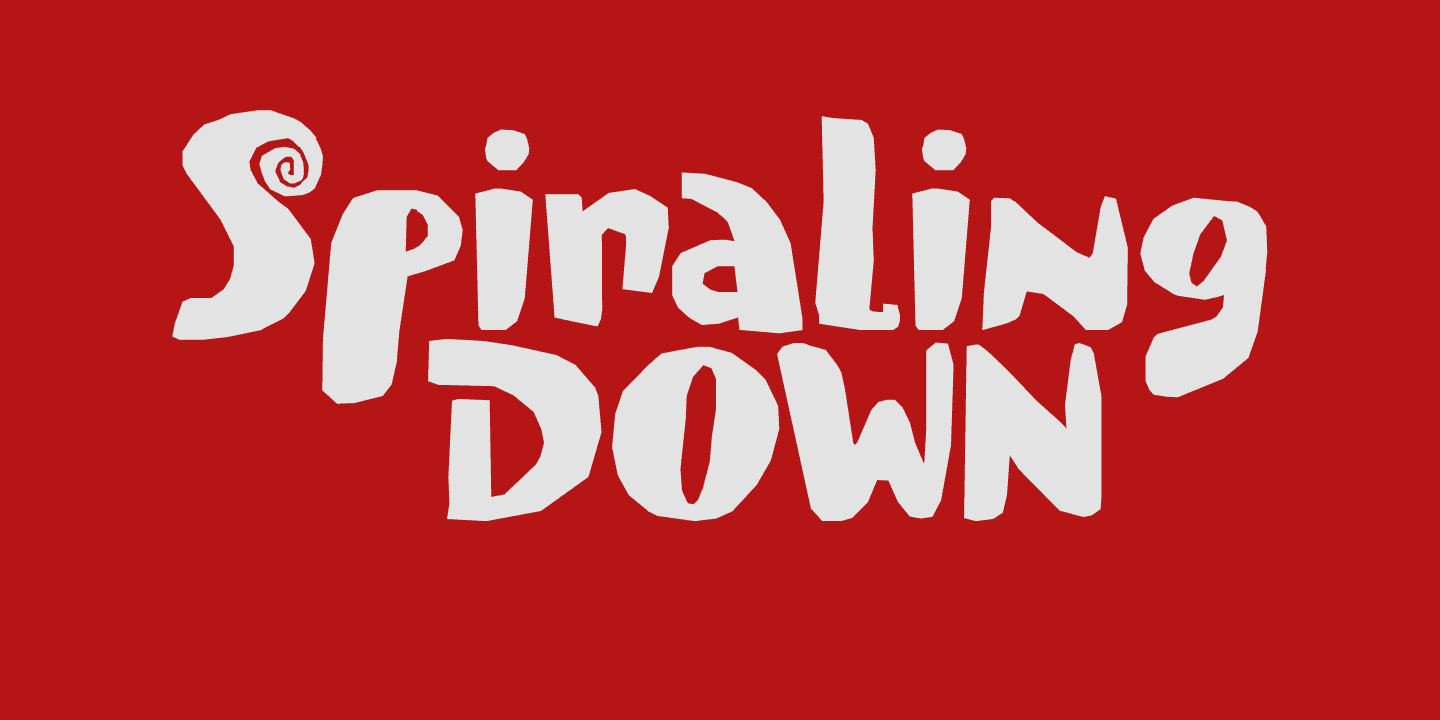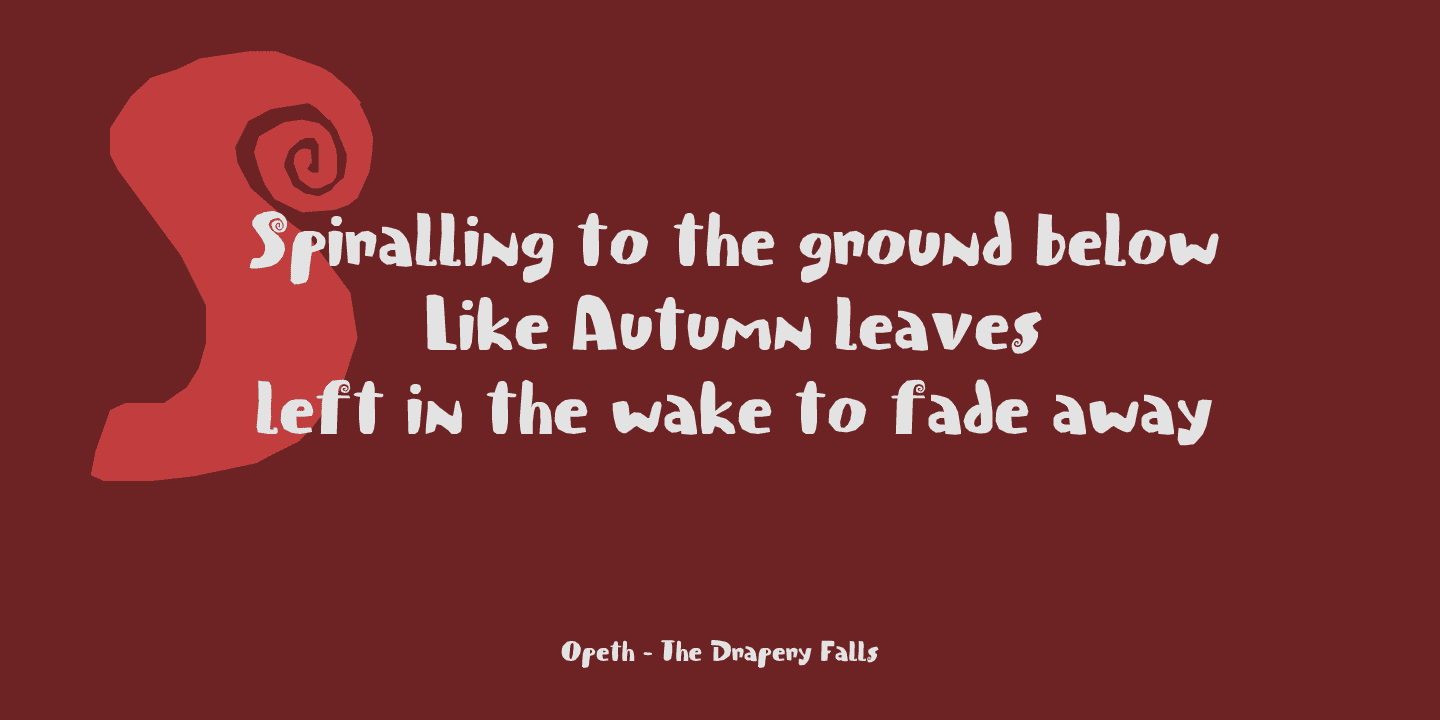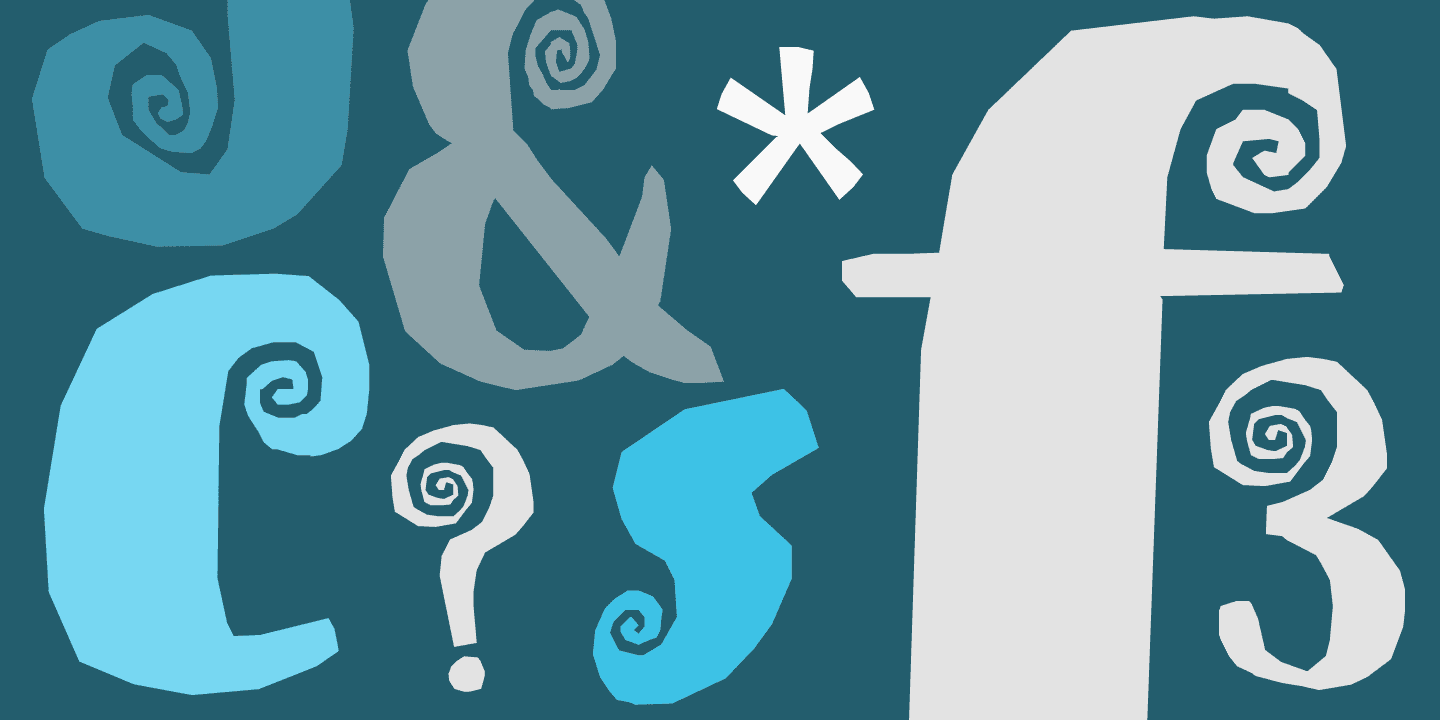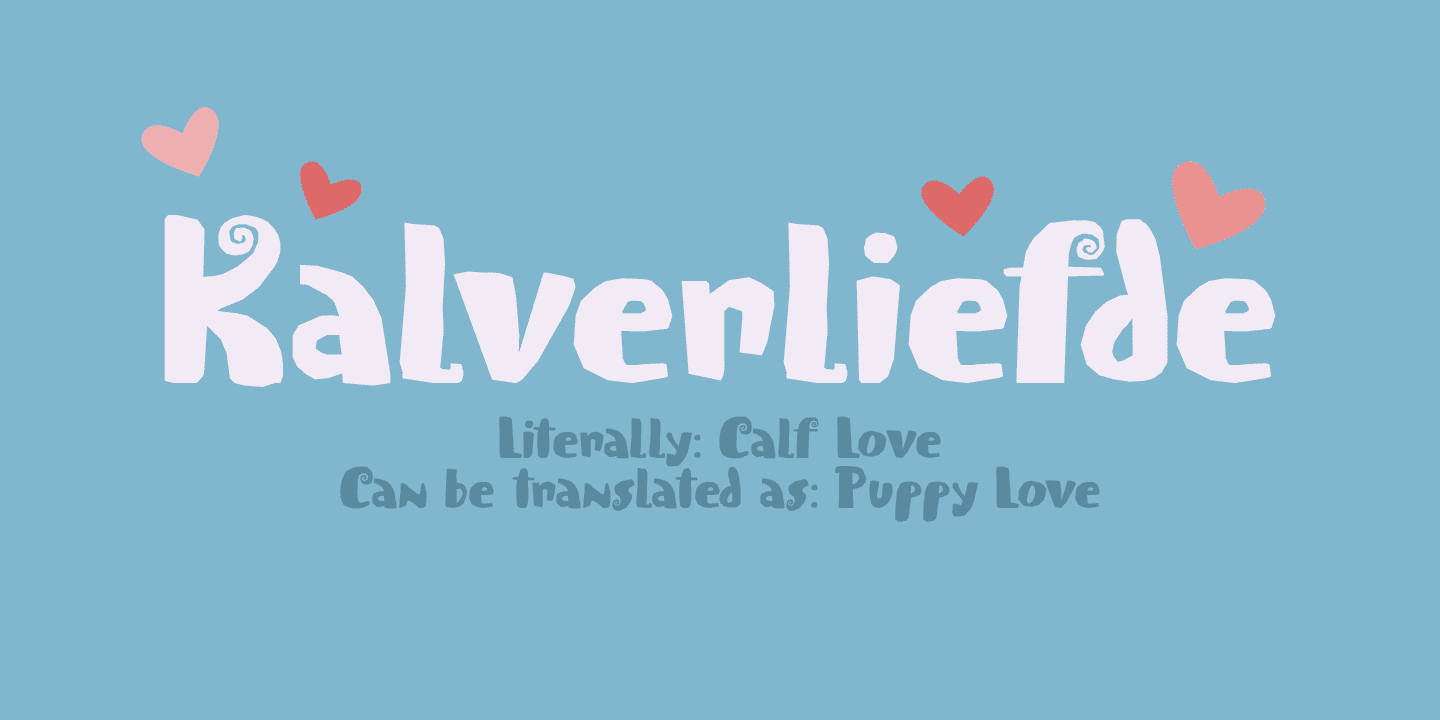
I was listening to an Opeth album called Blackwater Park. By the time I had decided that this font needed some swirls, the band was playing a song called The Drapery Falls - which has the word ‘spiraling’ in it (see poster 2) - and the name was born.
Spiraling down is a surprisingly elegant font (given its roughness). I probably wouldn’t set a whole text in it, but it will really stand out as a titling font for packaging or book covers.